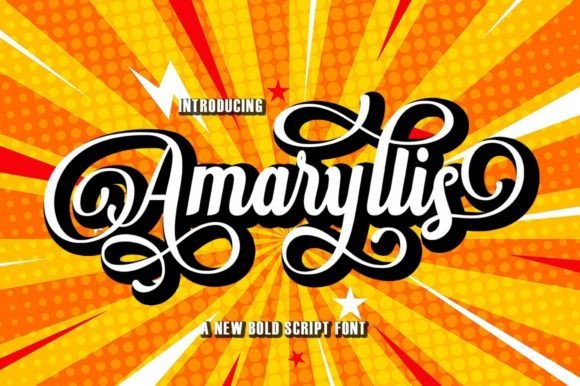
Welcome to the world of Amaryllis Font, a captivating and enchanting script font that will transform your creative visions into captivating realities. Immerse yourself in the realm of elegance and grace as you explore the endless possibilities this font has to offer. Its delicate curves and sweeping strokes evoke a sense of timeless beauty, while its modern twist adds a touch of contemporary flair. Amaryllis Font is the epitome of versatility, seamlessly adapting to a myriad of design projects.
As a culinary enthusiast, you'll find Amaryllis Font to be the perfect companion for your food-related endeavors. Its playful and whimsical nature adds a touch of charm to menus, recipe books, and food packaging, tantalizing taste buds and leaving a lasting impression on your audience. Whether you're creating a simple dish or a culinary masterpiece, Amaryllis Font will elevate your presentation, making your creations irresistible.
For those who cherish the art of handwritten notes and personalized touches, Amaryllis Font is your go-to choice. Its graceful lines and flowing characters add a personal touch to wedding invitations, thank-you cards, and greeting cards, making each piece a cherished keepsake. Your heartfelt messages will be adorned with an aura of elegance, leaving a lasting impression on the recipients.
In the realm of branding and identity, Amaryllis Font shines as a beacon of sophistication. Its unique and eye-catching style makes it the ideal choice for logos, business cards, and marketing materials. Whether you're a small business owner or a creative entrepreneur, Amaryllis Font will help you establish a strong and memorable brand identity. Its timeless beauty transcends trends, ensuring that your brand remains relevant and captivating for years to come.
Designers seeking a font that exudes elegance and charm will find solace in Amaryllis Font. Its intricate details and subtle nuances add depth and dimension to any project, whether it's a poster, a flyer, or a website design. Amaryllis Font is the perfect choice for creating designs that captivate and enchant, leaving a lasting impact on your audience.
But wait, there's more! Amaryllis Font comes fully equipped with PUA encoding, granting you effortless access to a treasure trove of glyphs and ligatures. Unleash your creativity and explore a vast array of design possibilities, adding a touch of magic to your projects.